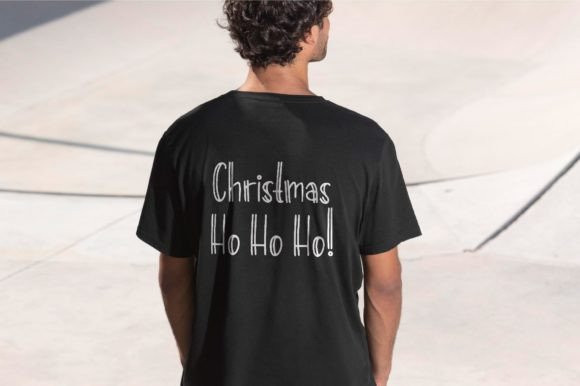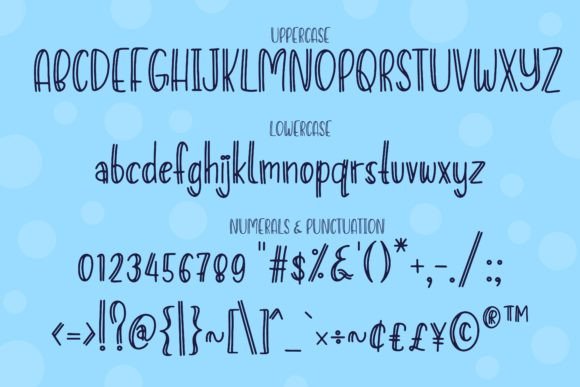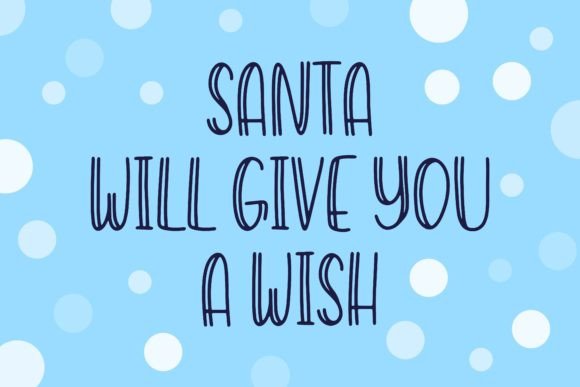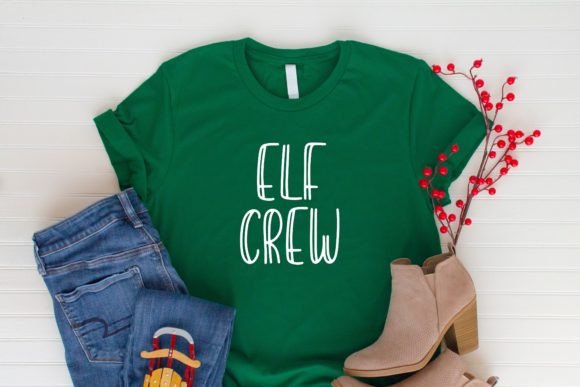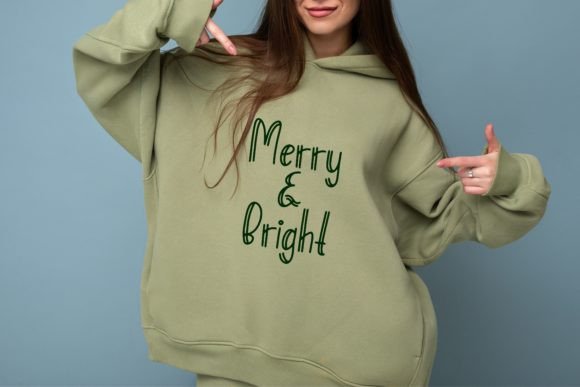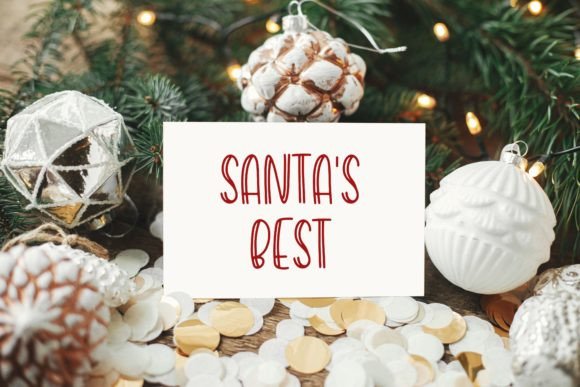
The Ultimate Christmas Party Font Guide: Add Some Holiday Cheer to Your Designs
It’s that time of the year again – the holiday season is just around the corner, and with it comes the pressure to create stunning designs that capture the festive spirit. I still remember the year I was tasked with designing a Christmas party invitation for a client’s office party. I spent hours scouring the internet for the perfect font, but nothing seemed quite right. That was until I stumbled upon the Christmas Party font – a cute and friendly handwritten font that instantly brought my design to life!
An Honest Review of Christmas Party Font
So, what makes the Christmas Party font so special? Let’s dive into the good stuff and, of course, a few minor quirks.
- ✨ Cute and Friendly Design: The Christmas Party font is perfect for creating quotes, logos, or any lettering product that needs a personal touch.
- 🎉 Easy to Read: The font’s clear and playful design makes it easy to read, even at smaller sizes.
⚠️ While the Christmas Party font is incredibly versatile, it’s worth noting that it may not be the best choice for very formal or traditional designs. Additionally, some users may find that the font’s playful nature can make it difficult to use for very long pieces of text.
🤔 One thing to keep in mind is that the font’s glyphs and swashes can be a bit overwhelming at first. However, with a little practice, you’ll be able to navigate the font’s features with ease.
The Story Behind Christmas Party Font
So, what’s the story behind the Christmas Party font? While the font’s creator may not be well-known, it’s clear that they were inspired by the magic of the holiday season. Imagine a designer, snuggled up by the fireplace, surrounded by twinkling lights and festive decorations, with a passion for creating beautiful and playful typography. That’s the spirit that went into creating the Christmas Party font!